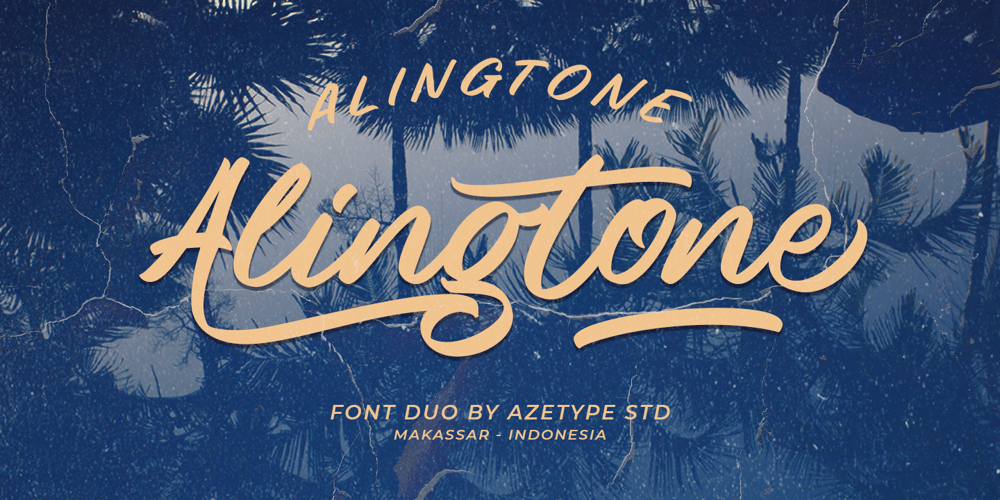
Alingtone Font Family was designed by Muh. Aswar and published by Azetype. Alingtone contains 3 styles and family package options. Presenting Alingtone Font Duo! A Display Font with 2 Versions, Alternates, and Extra. This font made with the perfect combination of each character. You can type by Mix & Match with an alternate version and extra swashes to get a unique combining. It looks original and can be used for all your project needs. Each glyph has its own uniqueness and when meeting with others will provide dynamic and pleasing proximity. This font can be used at any time and any project. You can see in the presentation picture above, Alingtone looks Versatile on design projects.So, Alingtone Font can’t wait to give its touch to all your design projects such as quotes, poster design, retro design, vintage design, business, advertisment, personal branding, promotional materials, logotype, product packaging, etc.Besides that, Alingtone Script also has some ligature that gives a surprise when you type certain characters combining. The ligatures are ee, ll, oo, ii, nn, yy, ff, rr, tt, and ss.WHAT’S INCLUDED?1. Alingtone Script • The First Version comes with uppercase, lowercase, ligatures, numeral, punctuation, symbols, and Standard Latin Multilingual Support (Afrikaans, Albanian, Catalan, Danish, Dutch, English, French, German, Icelandic, Indonesian, Italian, Malay, Norwegian, Portuguese, Spanisch, Swedish, Zulu, and More).2. Alingtone San • The Second Version comes with ALLCAPS, numeral, punctuation, symbols, and Standard Latin Multilingual Support (Afrikaans, Albanian, Catalan, Danish, Dutch, English, French, German, Icelandic, Indonesian, Italian, Malay, Norwegian, Portuguese, Spanisch, Swedish, Zulu, and More).3. Alingtone Script Alternate • It comes with uppercase, lowercase, numeral, punctuation, and symbols.4. Alingtone Swash • It comes with 21 underline swashes. Just type c_1 until c_21 to feature all.Enjoy the Font and Happy Creating! Thank YouAzetype Studio